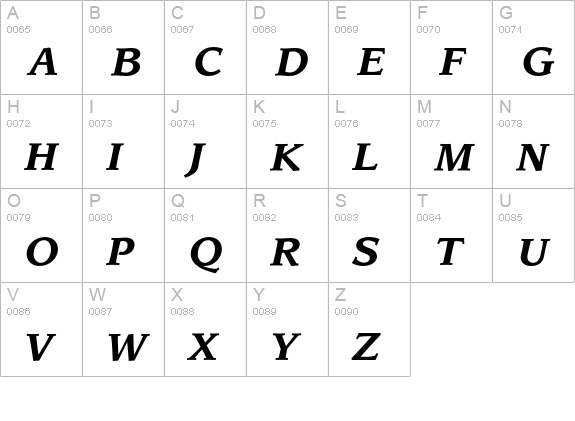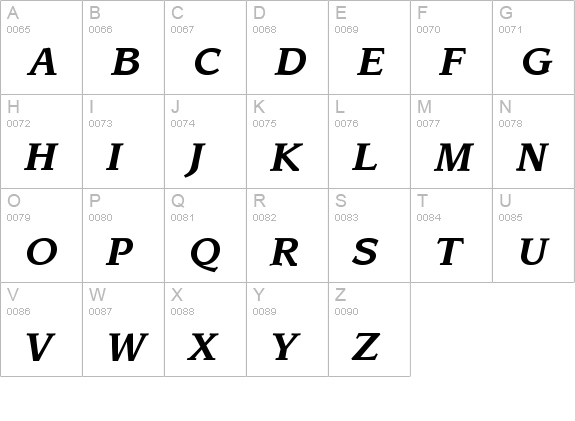
LeawoodEF-BoldItalic is a stunning font that exudes elegance and sophistication. Its bold and italicized letterforms create a sense of strength and grace, making it the perfect choice for projects that require a touch of both power and style. This font features meticulously designed characters with subtle curves and sleek lines, giving it a modern yet timeless appeal. LeawoodEF-BoldItalic effortlessly balances traditional elements with contemporary aesthetics, making it versatile for a wide range of design purposes. With its free-flowing italicized style, LeawoodEF-BoldItalic adds a touch of flair and artistic flair to any text. Whether used for headlines, signage, branding, or graphic designs, this font elevates the visual impact of any project. One of the best features of LeawoodEF-BoldItalic is its availability as a free download at FontsMarket.com. This means that anyone can easily access and use this exceptional font without any cost. FontsMarket.com is a trusted platform that offers a vast collection of high-quality fonts, and LeawoodEF-BoldItalic is just one of the many gems you can find there. So, if you're looking for a bold and italicized font that combines elegance and power, LeawoodEF-BoldItalic is the perfect choice. Its freely available download at FontsMarket.com ensures that you can enhance your designs with this exceptional font without any financial constraints. Don't miss out on the opportunity to add a touch of sophistication to your projects with LeawoodEF-BoldItalic.